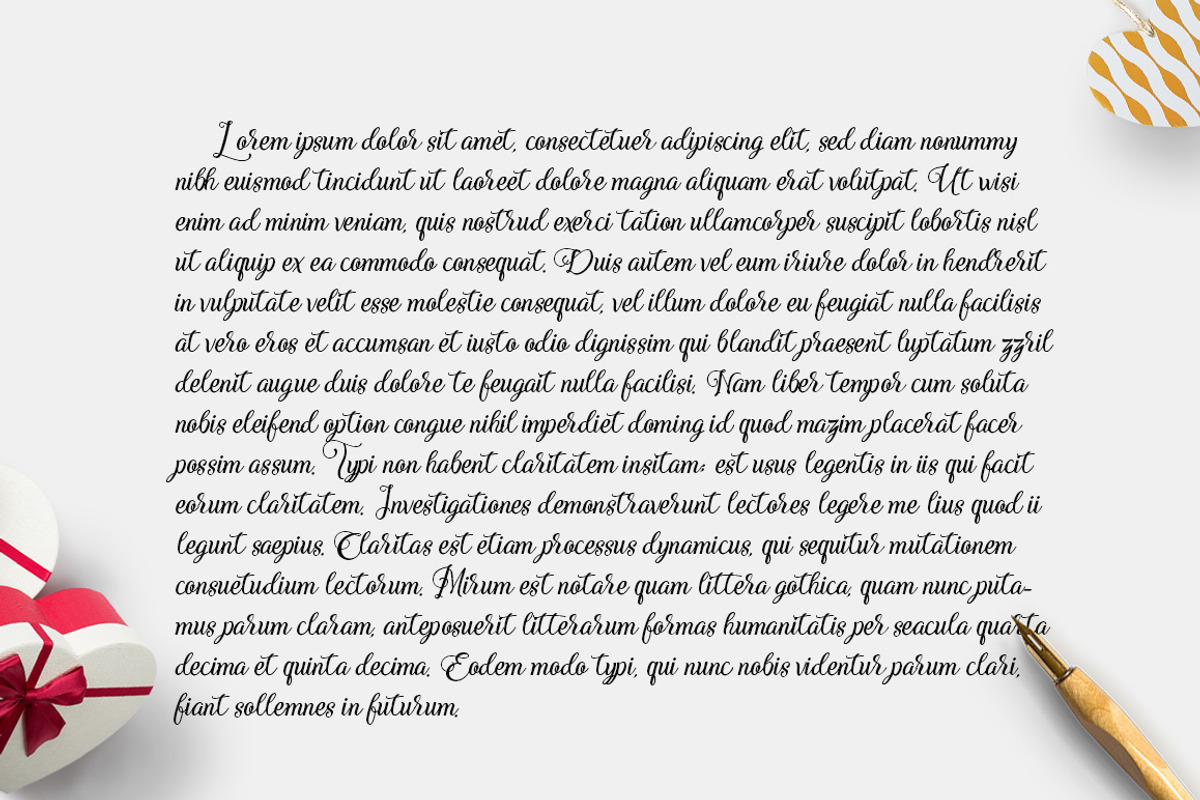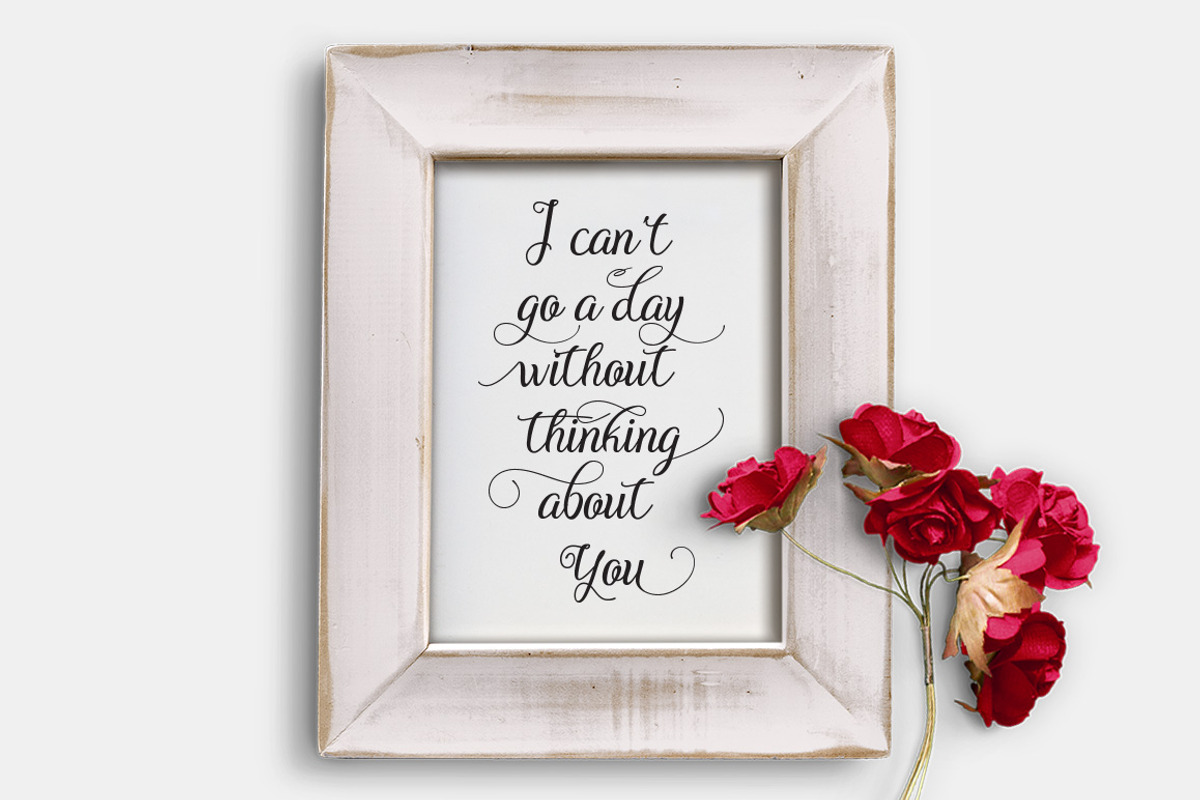
Adorabelle
Adorabelle Script - a new fresh & modern script with a calligraphy style, decorative characters and a dancing baseline! So beautiful on invitation like greeting cards, branding materials, business cards, quotes, posters, and more!
- Initial Alternates
- Terminal Alternates
- Standard ligatures
- Unique ligatures
- Stylistic sets
- Contextual Alternates
- SWASH
- International Symbols include